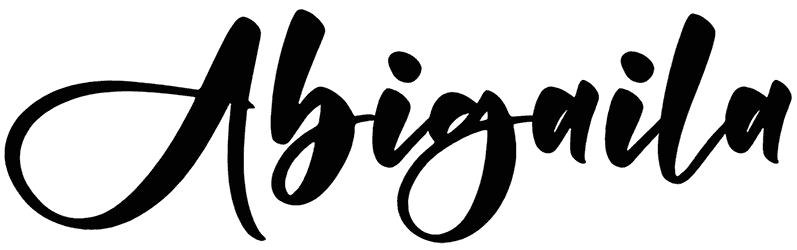
Abigaila Font
While engaging the audience is getting more difficult every moment, a magical script font the same to the Abigaila can be your survivor and help you to easily attract the viewers.
Since this handwritten font comes with a cursive style and rounded characters, it can add a vibe of personalization, freshness, momentum, or delicacy to your projects. In addition, it looks insanely good on blog posts, gift cards, business cards, and applications.